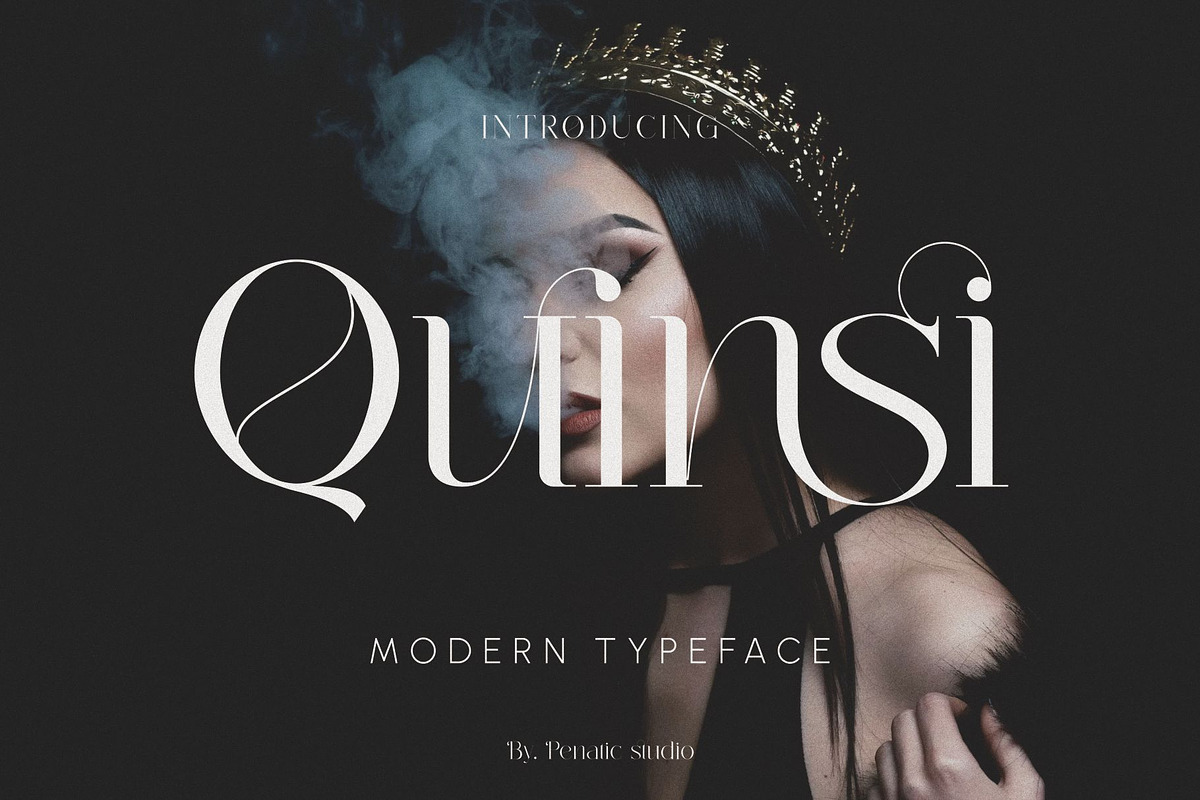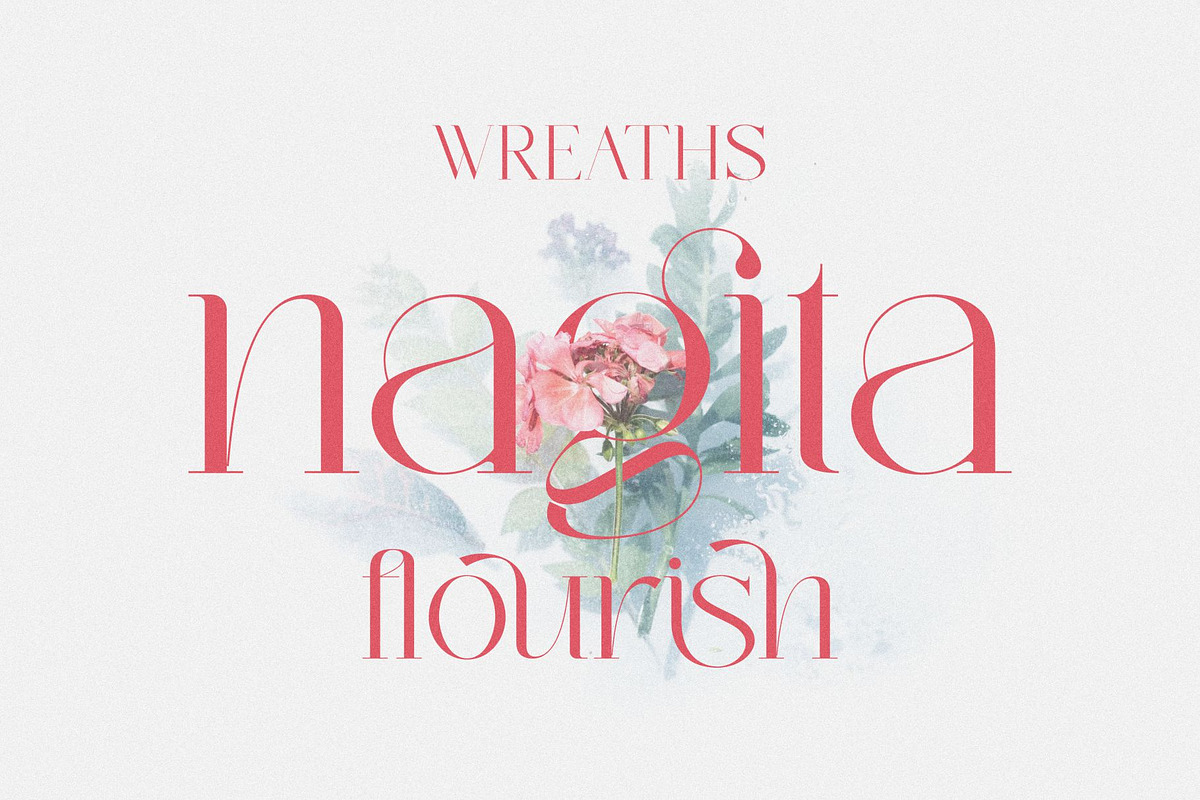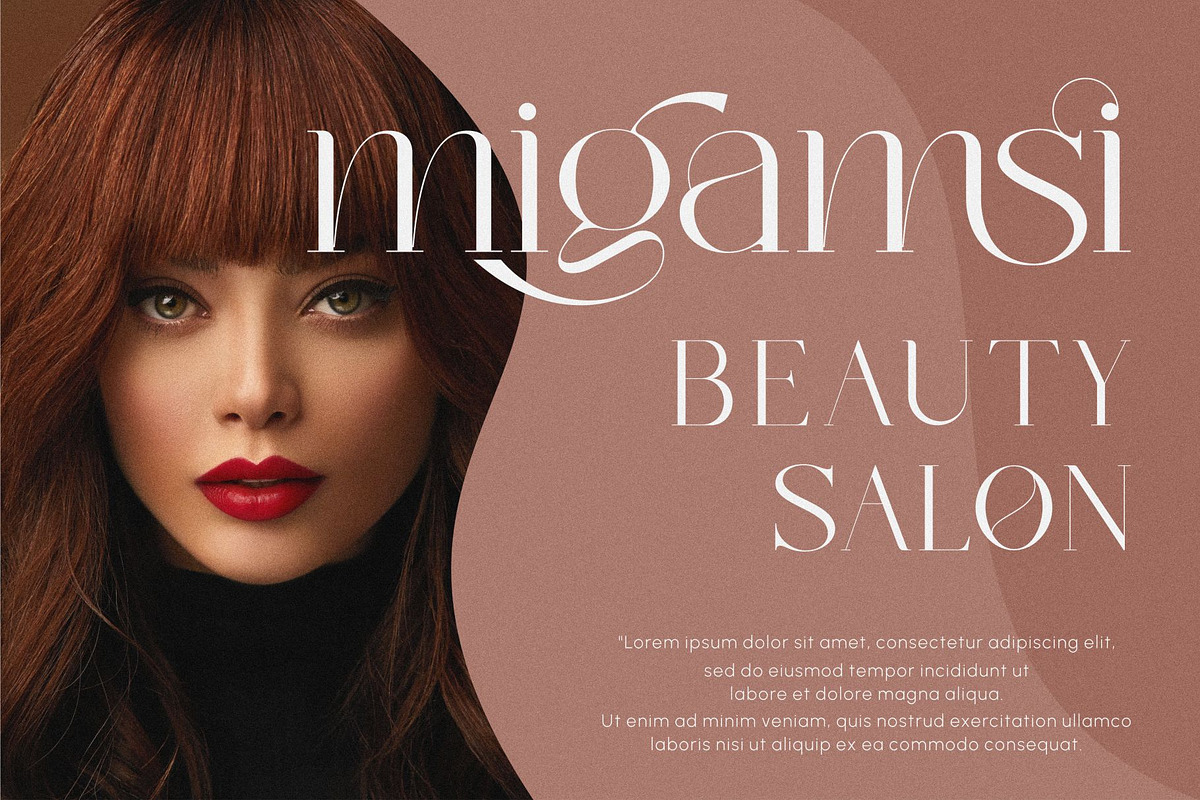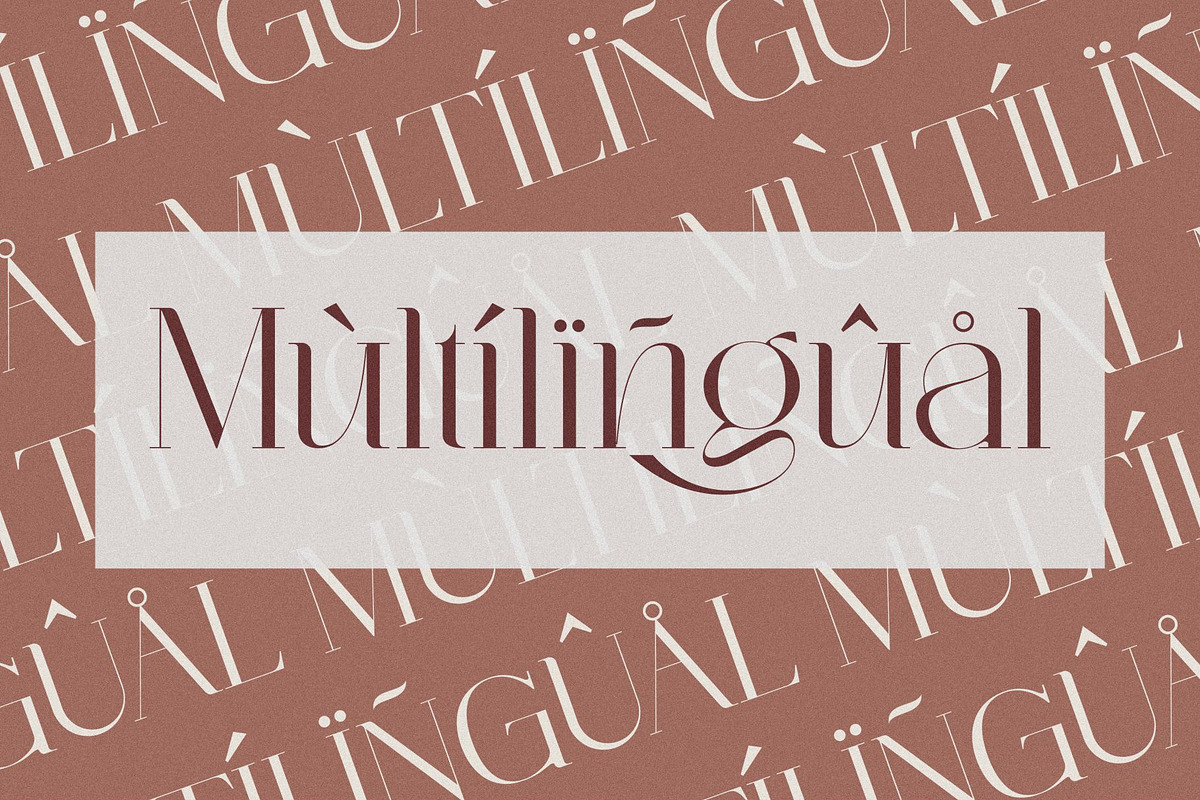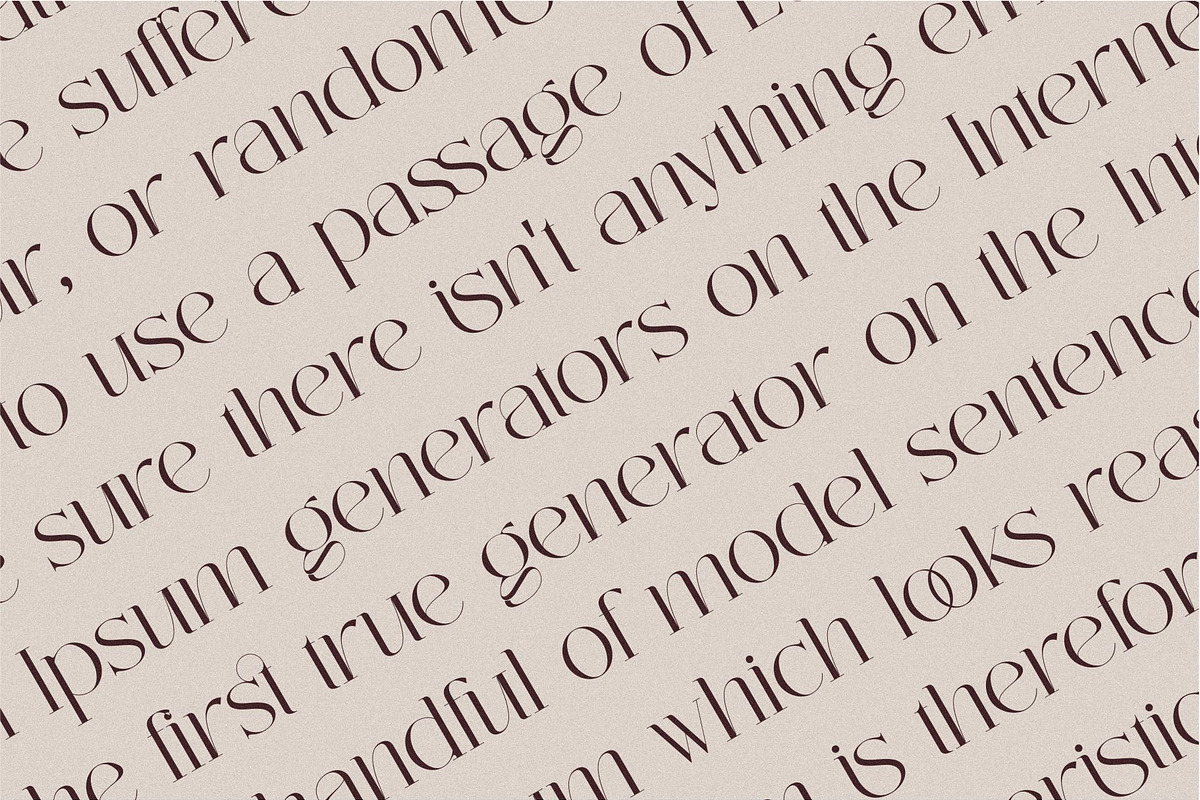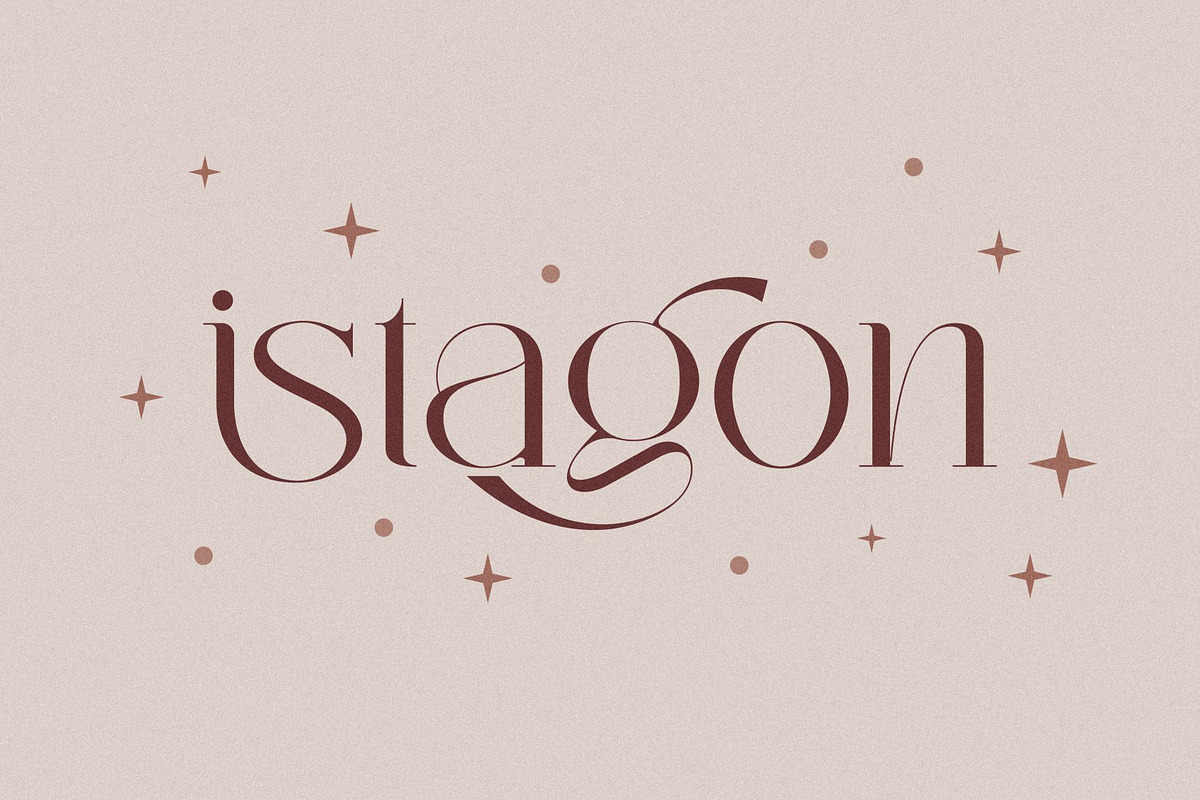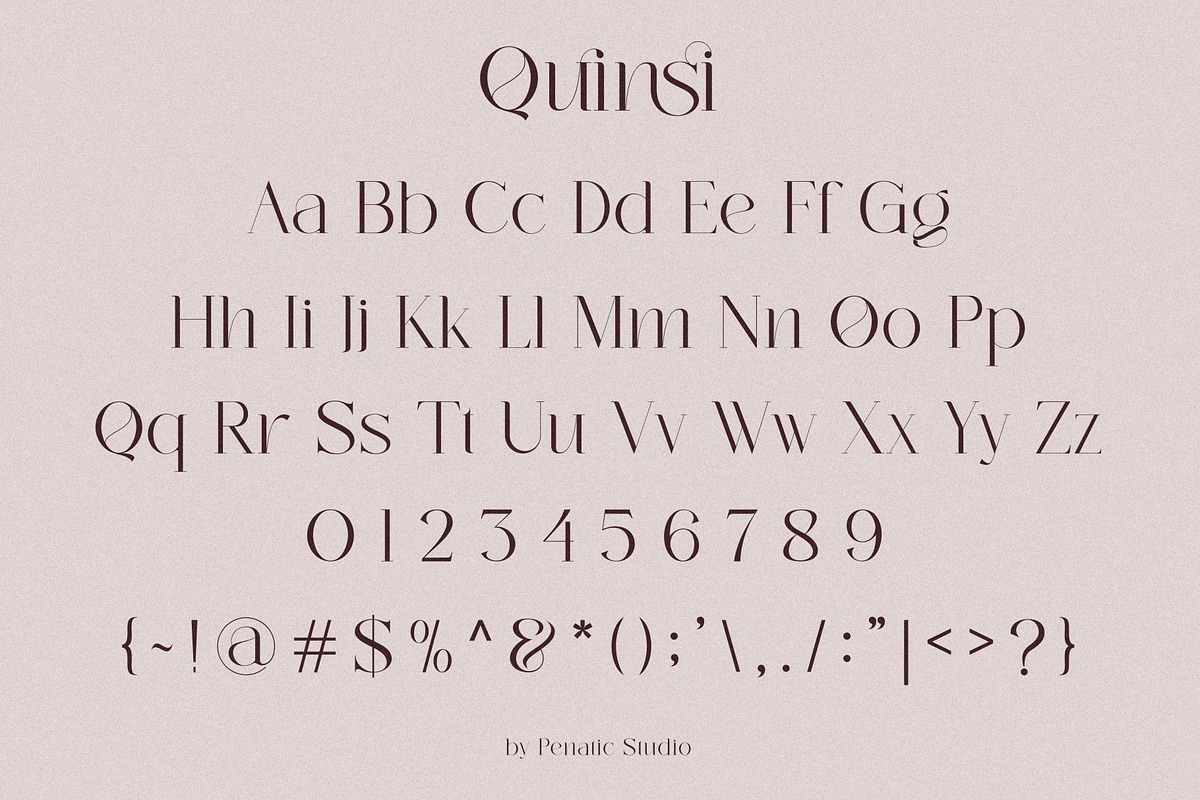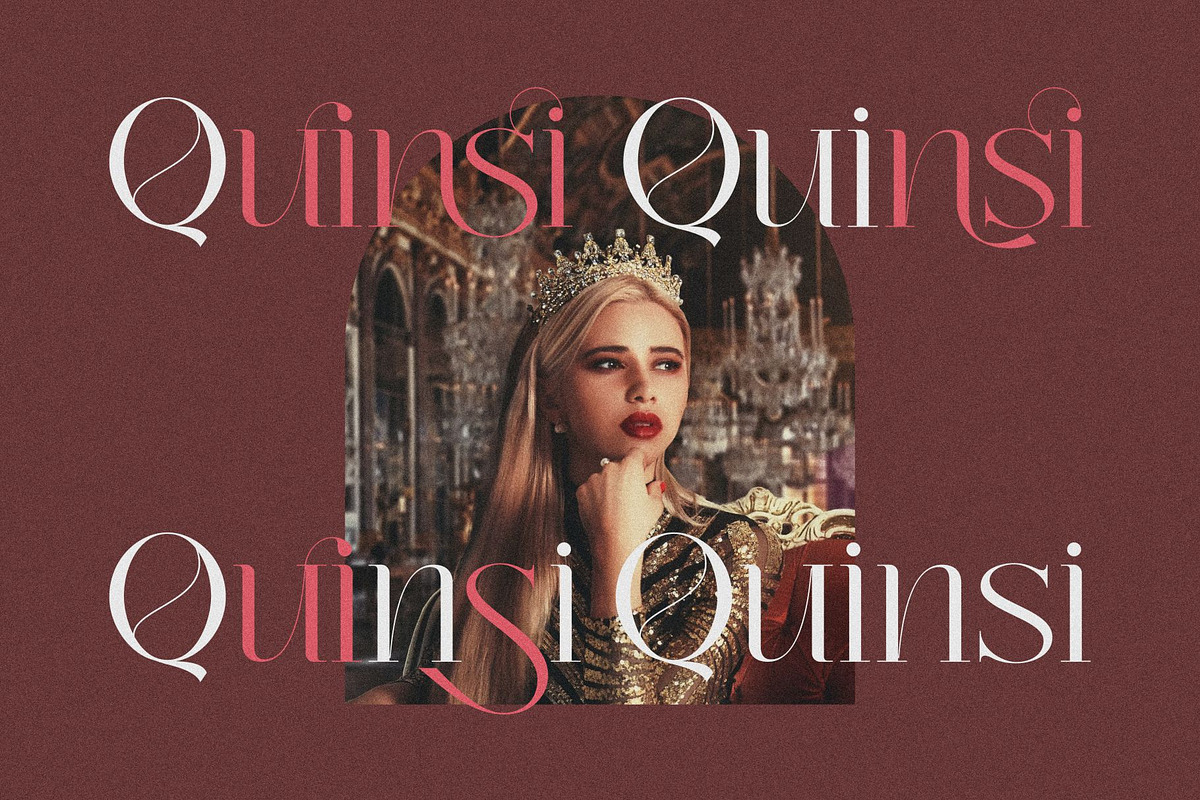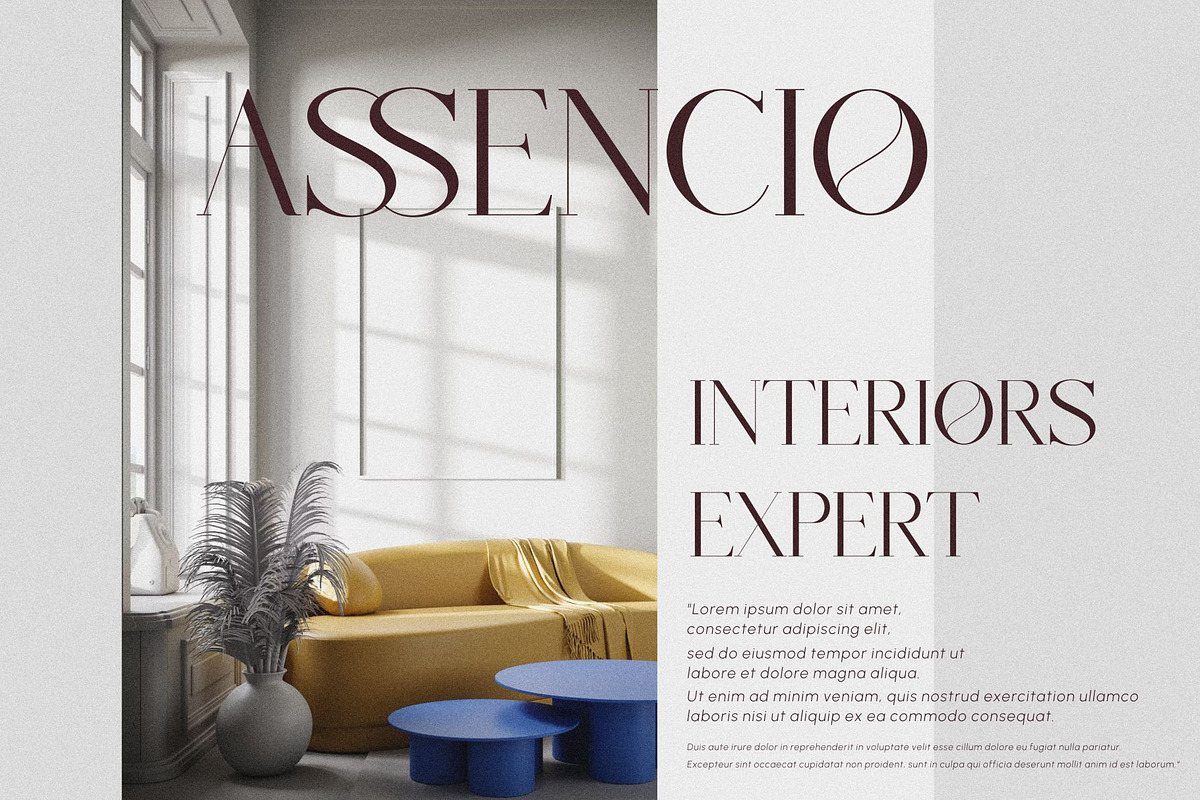
Quinsi Modern Typeface
Quinsi Modern Typeface is an elegant blend of classic elements and contemporary touches, creating an alluring look with a soft and inviting feel. Smooth lines and gentle curves give it a graceful and flowing character, while modern touches give it a fresh, up-to-date look. This font conveys a classic yet understated elegance, perfect for design projects that wish to portray elegance, softness, and modernity in a harmonious whole.
~ Unique Fonts Ligatures and Alternate